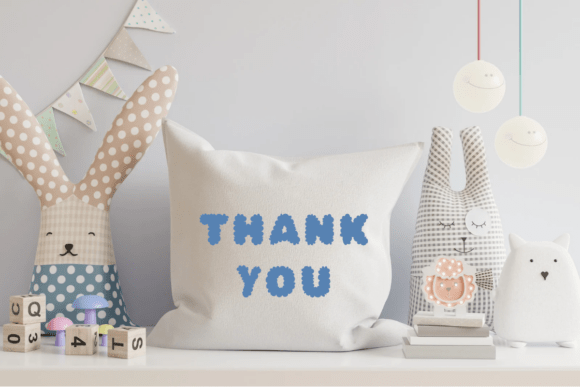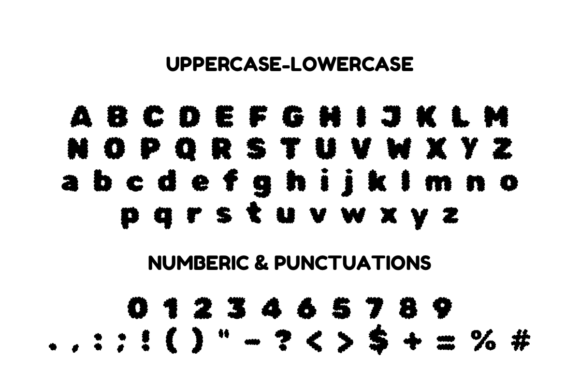
The Boop Font: A Fun and Versatile Display Font for Creative Projects
I’ll never forget the time I was working on a greeting card design project, and I just couldn’t find the right font to convey the playful and cheerful tone I was going for. The client wanted something fun and bubbly, but not too childish. That’s when I stumbled upon the Boop font, and it instantly became the perfect fit. In this article, I’ll share my experience with the Boop font, its features, and how to use it in various design platforms.
An Honest Review of Boop Font
The Boop font has quickly become one of my go-to display fonts for creative projects. Here’s what I love about it:
• ✨ Unique and playful design that’s perfect for making a statement
• ✅ Highly legible, even at smaller sizes
• ✅ Great for both digital and print designs
• ✅ Works well for a variety of design projects, from greeting cards to social media posts
However, there are a few quirks to be aware of:
• 🤔 The font can be a bit over-the-top for more formal designs
• ⚠️ Some characters may not work well in certain contexts, such as body text
The Backstory of Boop Font
The Boop font was designed by a team of creatives who wanted to create a fun and versatile display font that could be used for a variety of design projects. Inspired by the playful and bubbly world of childhood, the Boop font is perfect for designs that require a more whimsical tone. Whether you’re designing a greeting card, a social media post, or a banner, the Boop font is sure to bring a smile to your audience’s face.
Font Name Boop Font
Author Nun Sukhwan
What is the Boop font best used for? The Boop font is best used for display designs, such as headings, titles, and short paragraphs. It’s perfect for designs that require a playful and whimsical tone.
Is the Boop font suitable for body text? No, the Boop font is not suitable for body text. It’s best used for display purposes, such as headings and titles. For body text, consider using a more legible font.